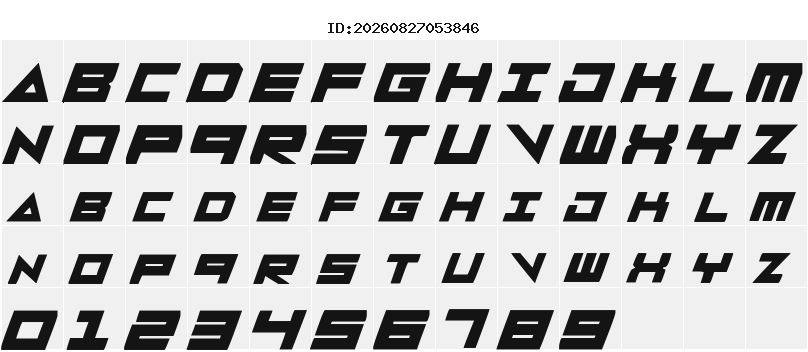
• Font Name: 5STAR League
About 5STAR League.ttf
5STAR League.ttf is a modern, elegant sans-serif font designed for ultimate readability and visual harmony. Perfect for branding, headlines, web design, and print materials.